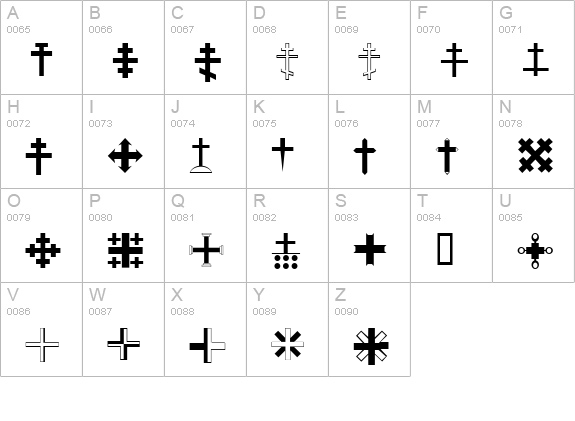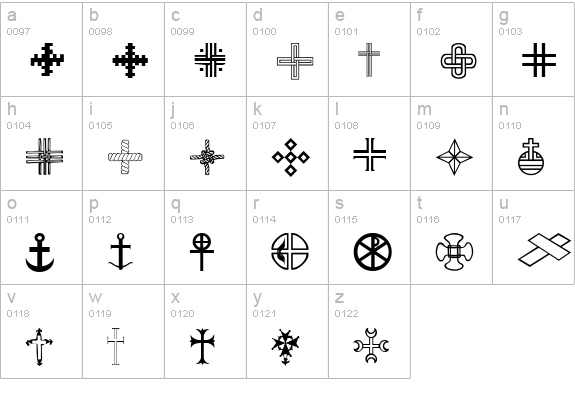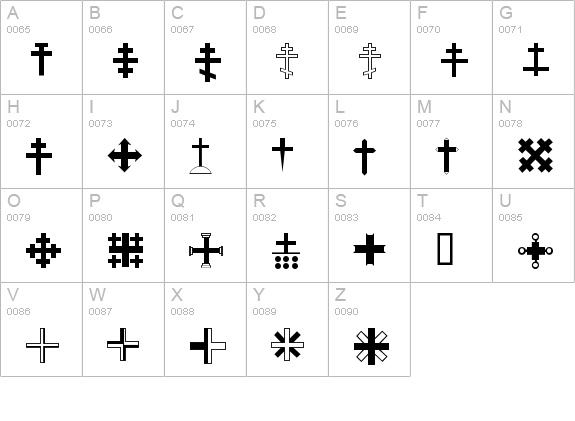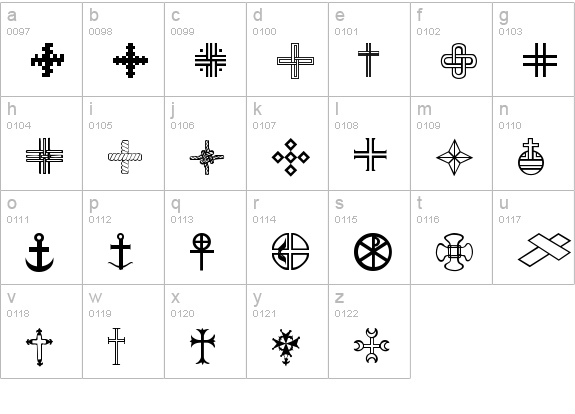
Christian Crosses III font is a beautifully crafted typeface that features intricate and elegant designs of various Christian crosses. This font is perfect for adding a religious touch to your projects, whether it be for invitations, greeting cards, posters, or any other design work. The detailed and ornate crosses in this font will surely captivate your audience and convey a sense of spirituality and reverence. And the best part? Christian Crosses III font is completely free to download at FontsMarket.com! This means you can easily access this stunning font and use it in your projects without any cost. Don't miss out on the opportunity to enhance your designs with the timeless beauty of Christian Crosses III font. Download it now and bring a touch of faith and grace to your work.